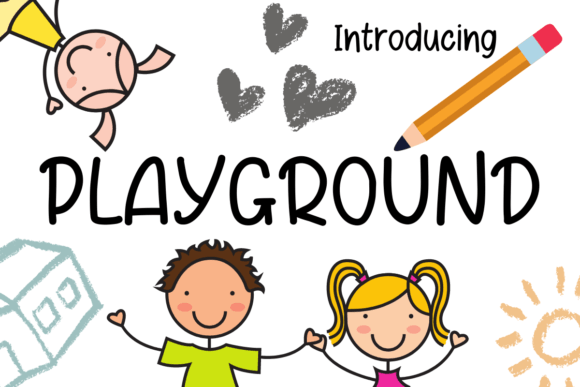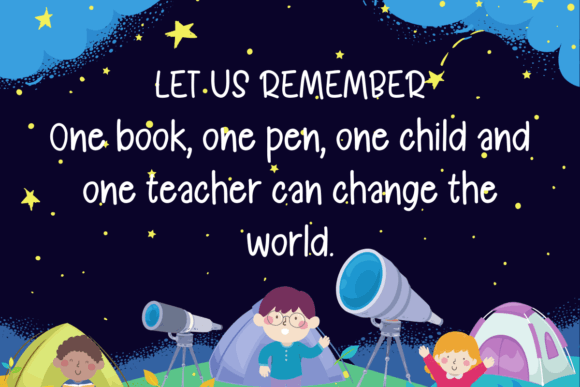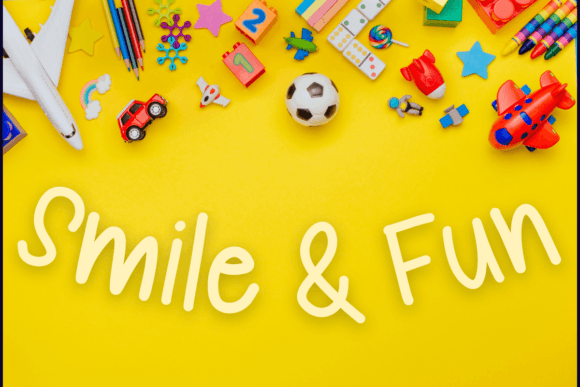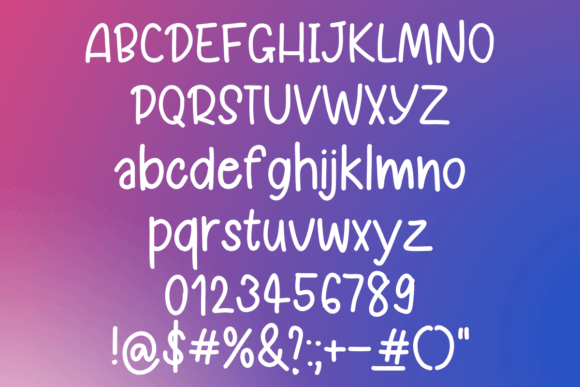
Playground Font
About Playground Font
“Playground” is an adorable and playful handwritten font designed specifically for children. Its charming and fun style is intended to inspire kids to engage in enjoyable and stimulating activities. This font is an excellent choice for various applications within the children’s market, including kids’ books, online games, event posters, school materials, and other projects related to children.
One of the key features of “Playground” is its cuteness, which instantly captures the attention of young audiences. The playful and friendly appearance of the font makes it inviting and encourages children to explore the content it presents. Whether used in educational materials, interactive games, or event advertisements, “Playground” adds a delightful touch that resonates well with kids.
Moreover, this font is well-suited for enhancing the visual appeal of kids’ books. Its whimsical style can bring characters and stories to life, creating an immersive reading experience for young readers. In online games, “Playground” can be used for in-game text, menus, and instructions, adding an element of fun and excitement to the gaming experience.
For event posters and school-related projects, “Playground” infuses a sense of energy and creativity. Its handwritten and playful nature conveys a sense of youthful enthusiasm, making it ideal for promoting school events, extracurricular activities, and educational initiatives targeted at children.
In summary, “Playground” is more than just a font; it’s a tool that amplifies the joy and excitement of childhood. Its cute and fun design motivates kids to engage in enjoyable and challenging activities, making it a valuable asset for anyone working on projects aimed at young audiences. Embrace the charm of “Playground” and create vibrant and engaging content that captivates and inspires children.